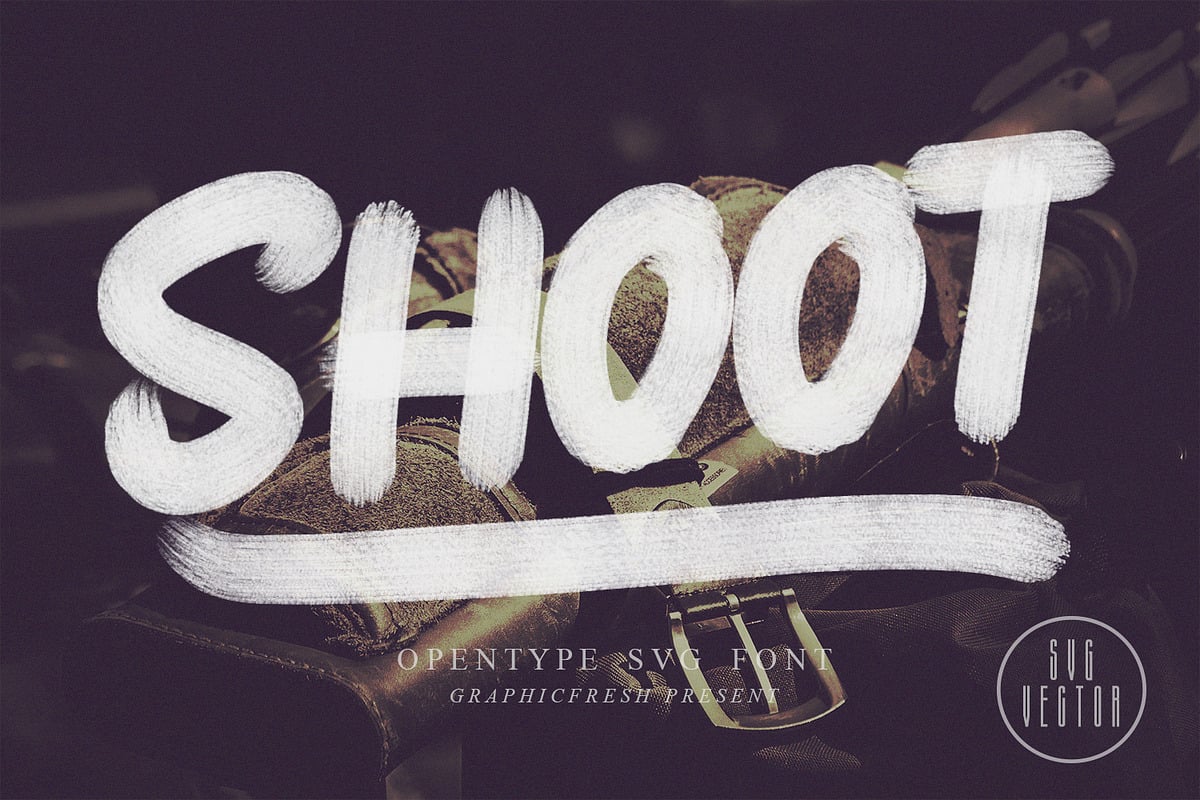
Shoot SVG Font
Raw, oil-painted brush strokes transformed into a bold display font built for urban, high-impact design.
Shoot is a brush display typeface crafted with a realistic oil texture. The level of detail is razor-sharp — every letterform feels exactly as if it were hand-painted with a loaded brush. The result is a large, commanding font with a slightly rough, organic edge that instantly grabs attention.
It's a perfect fit for:
- Posters and advertisements
- Packaging and branding
- Headlines and signboards
- Any design calling for an authentic urban look and feel